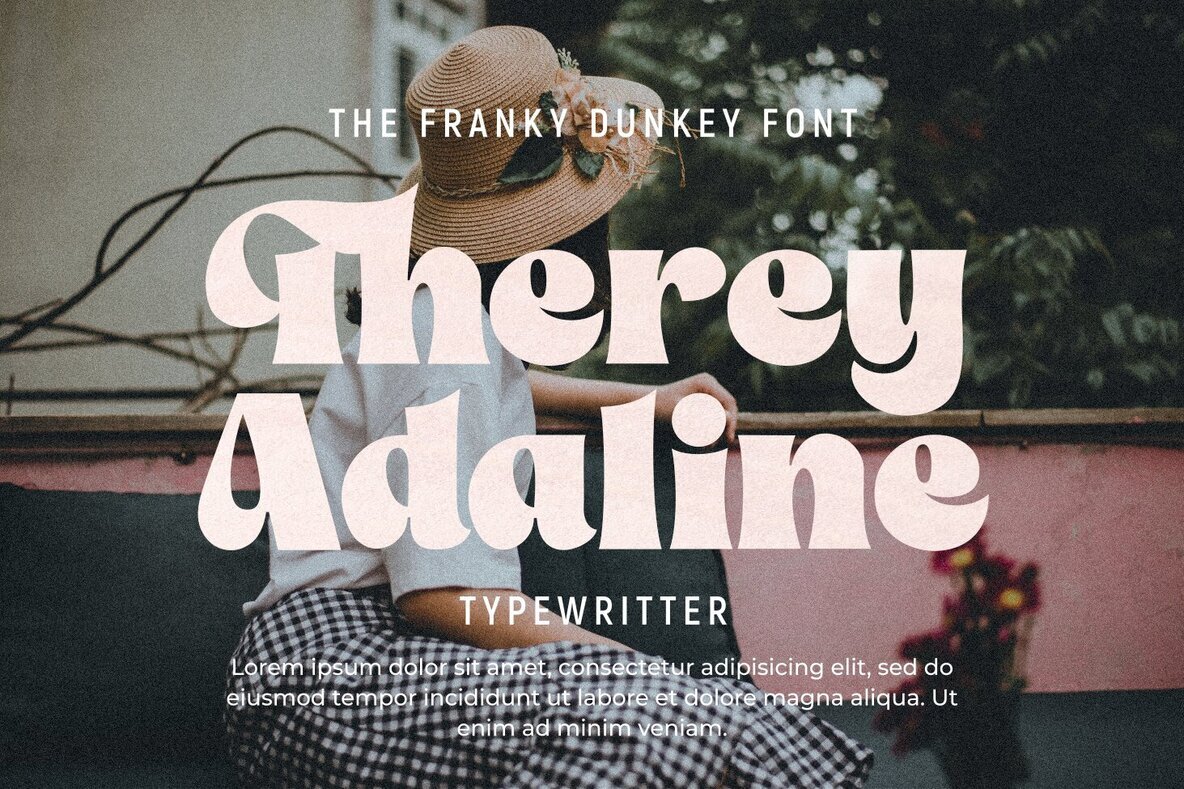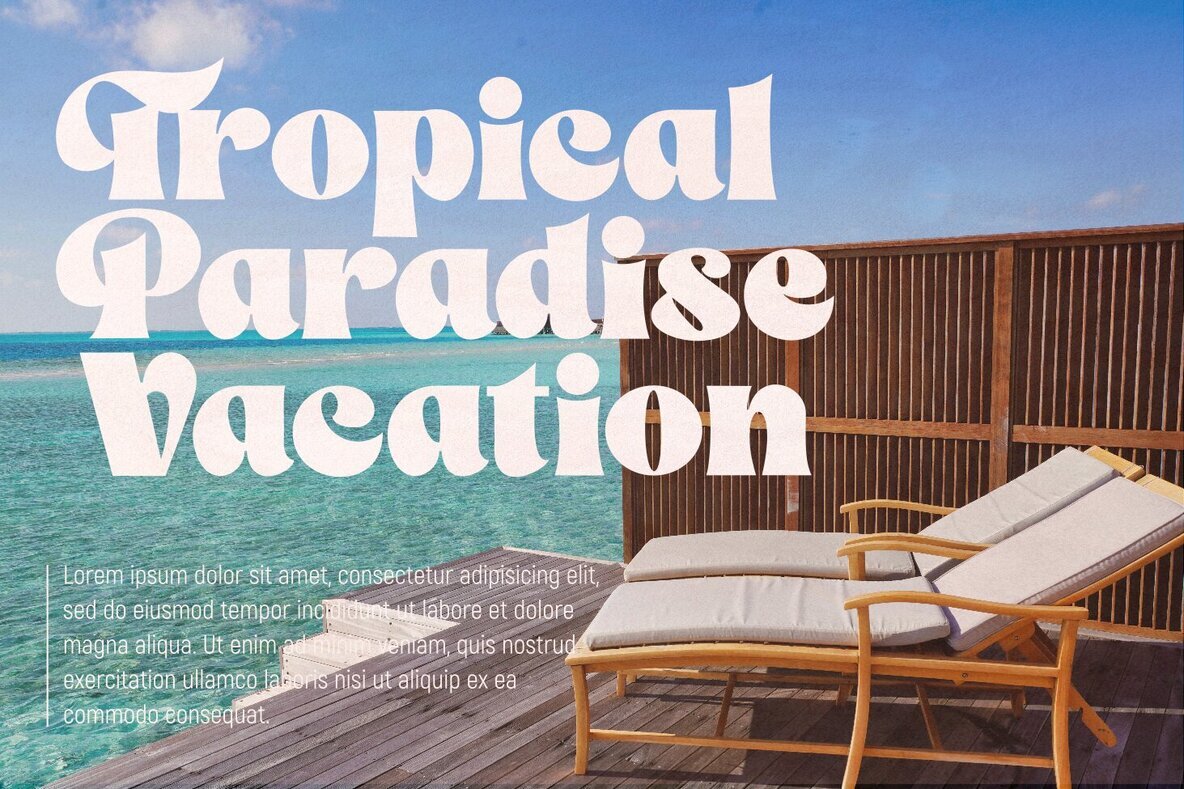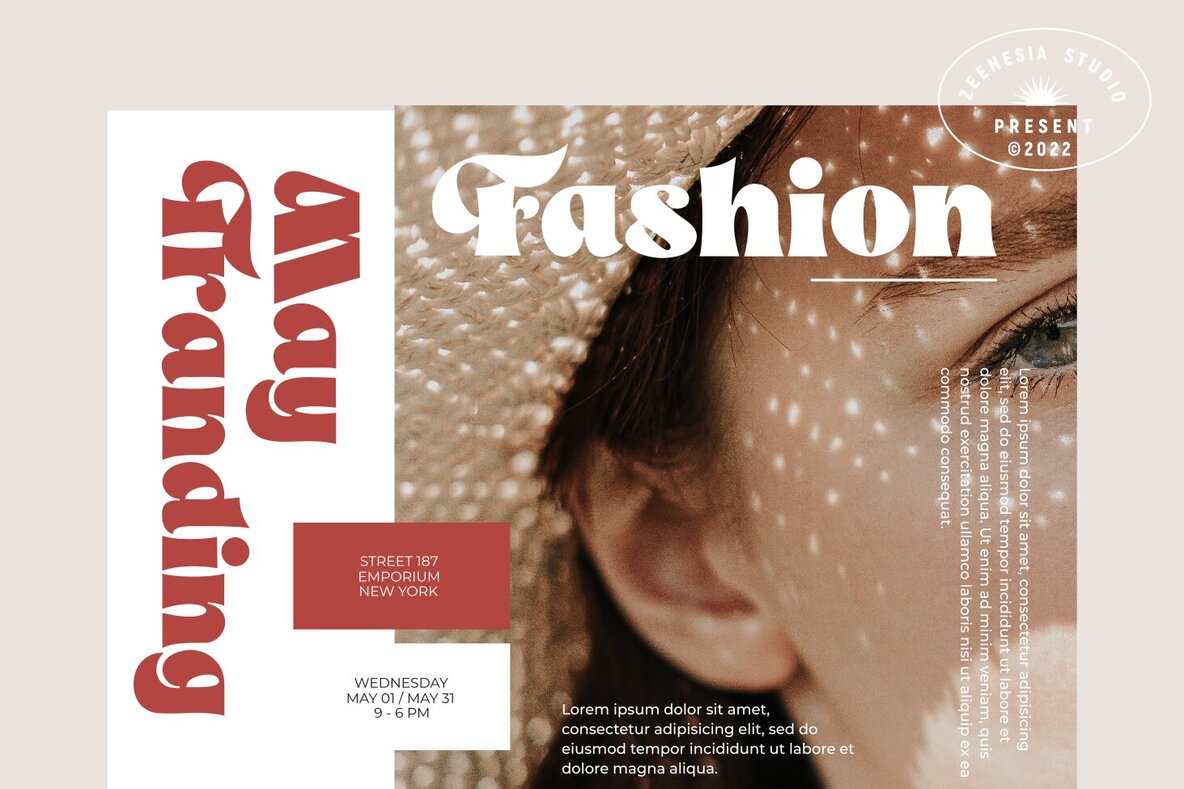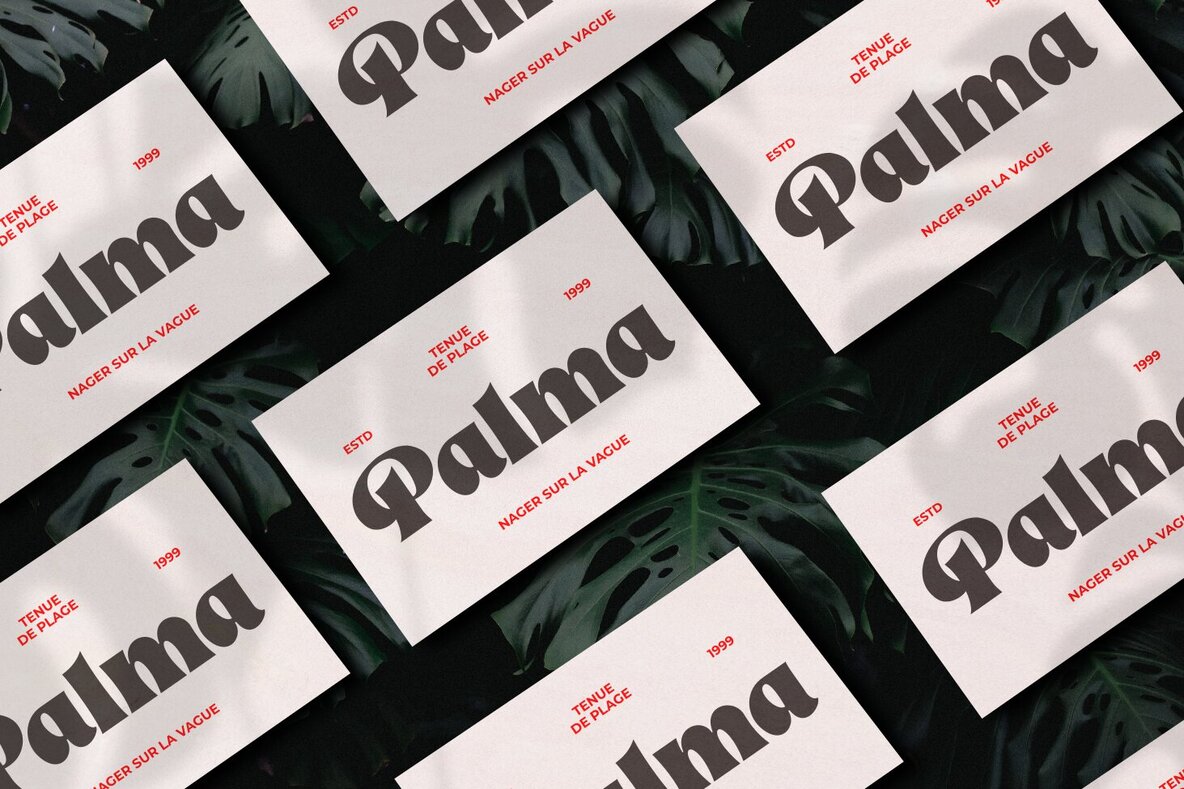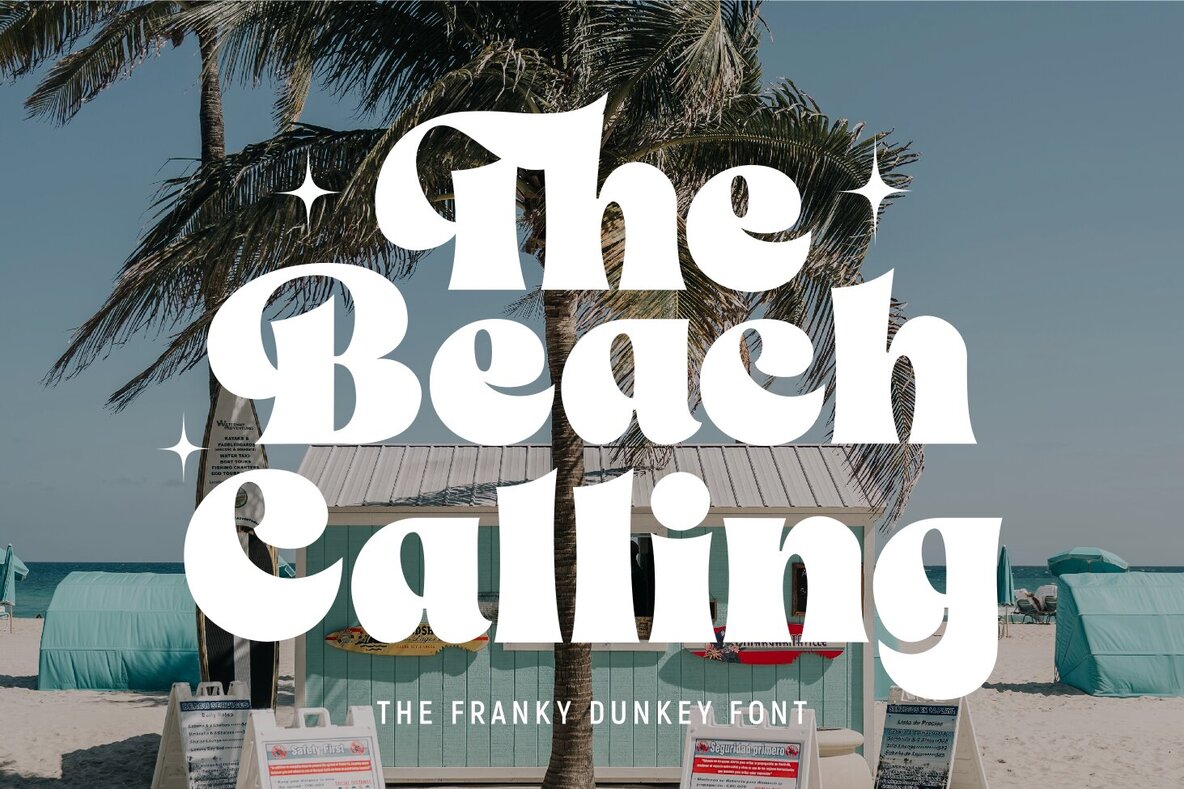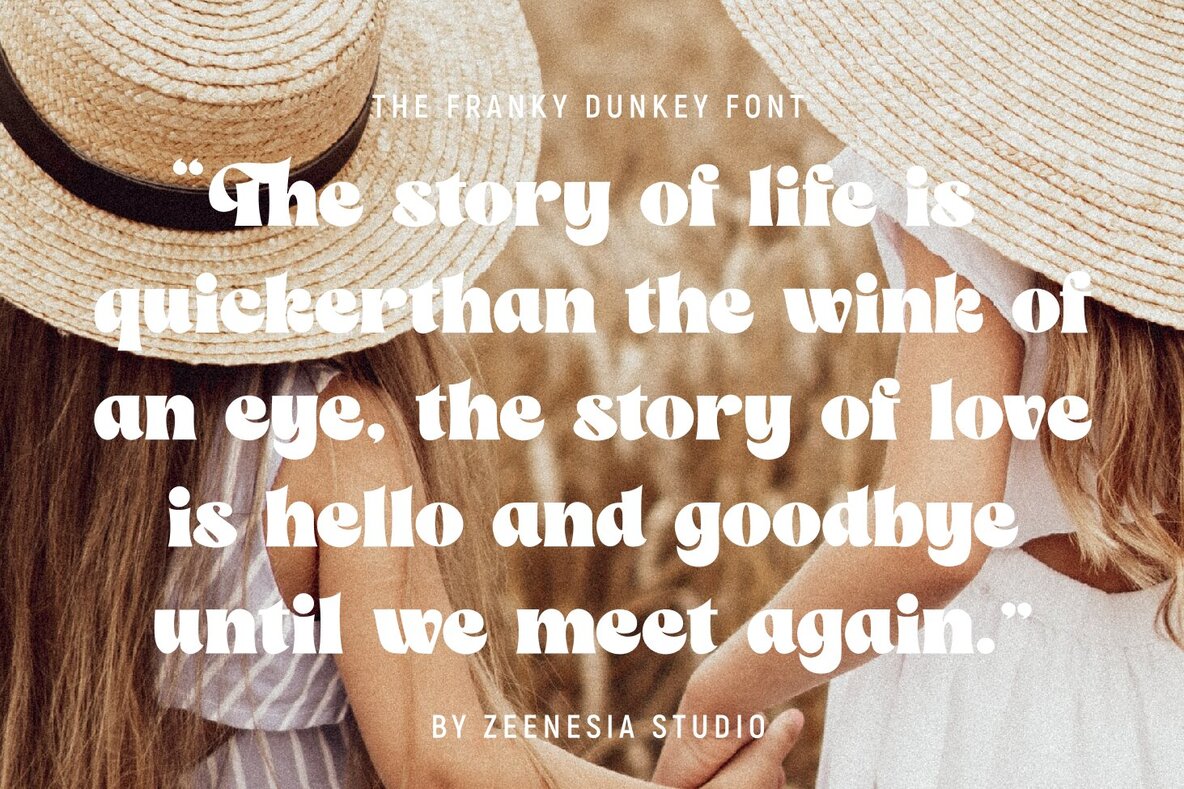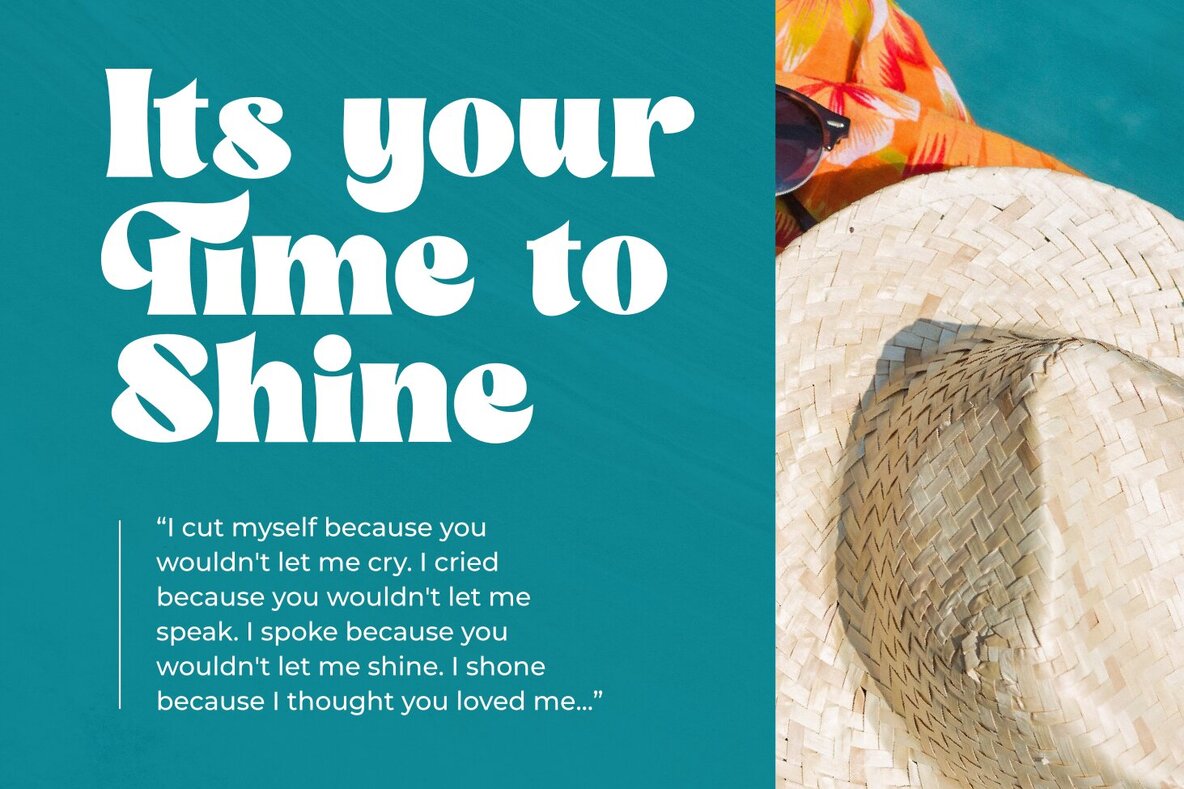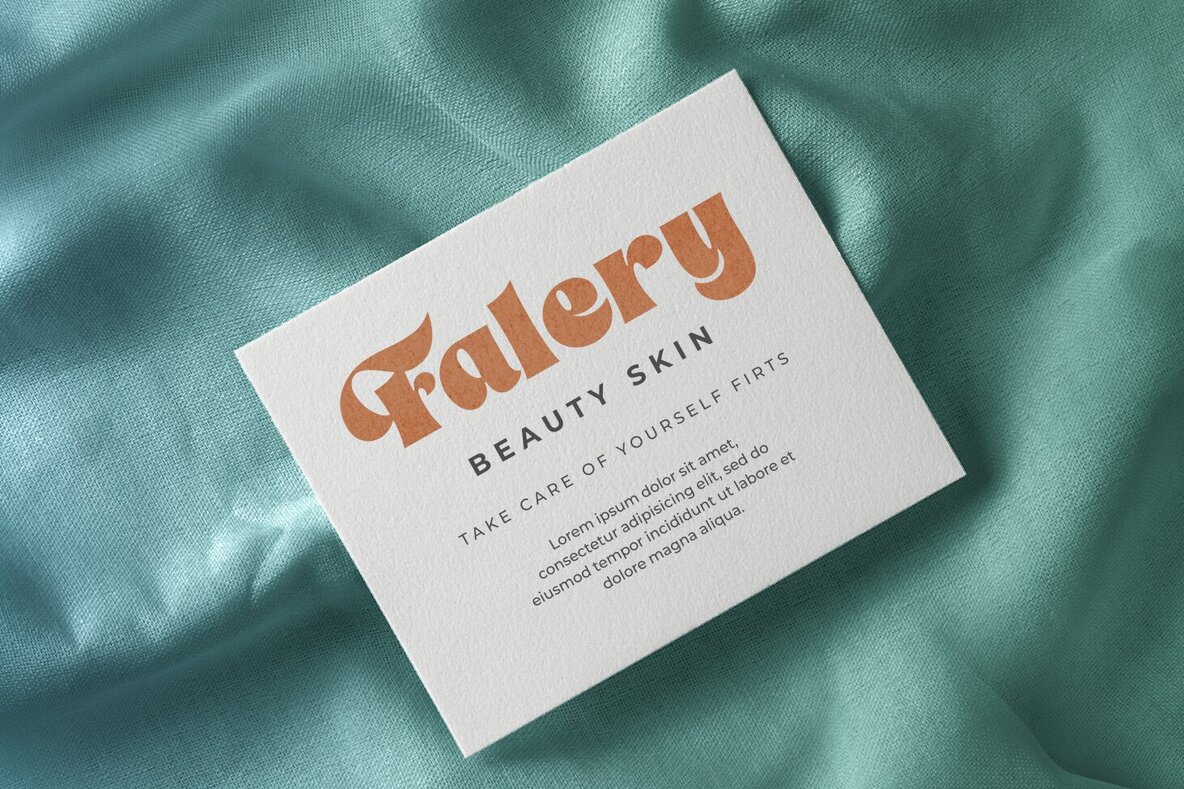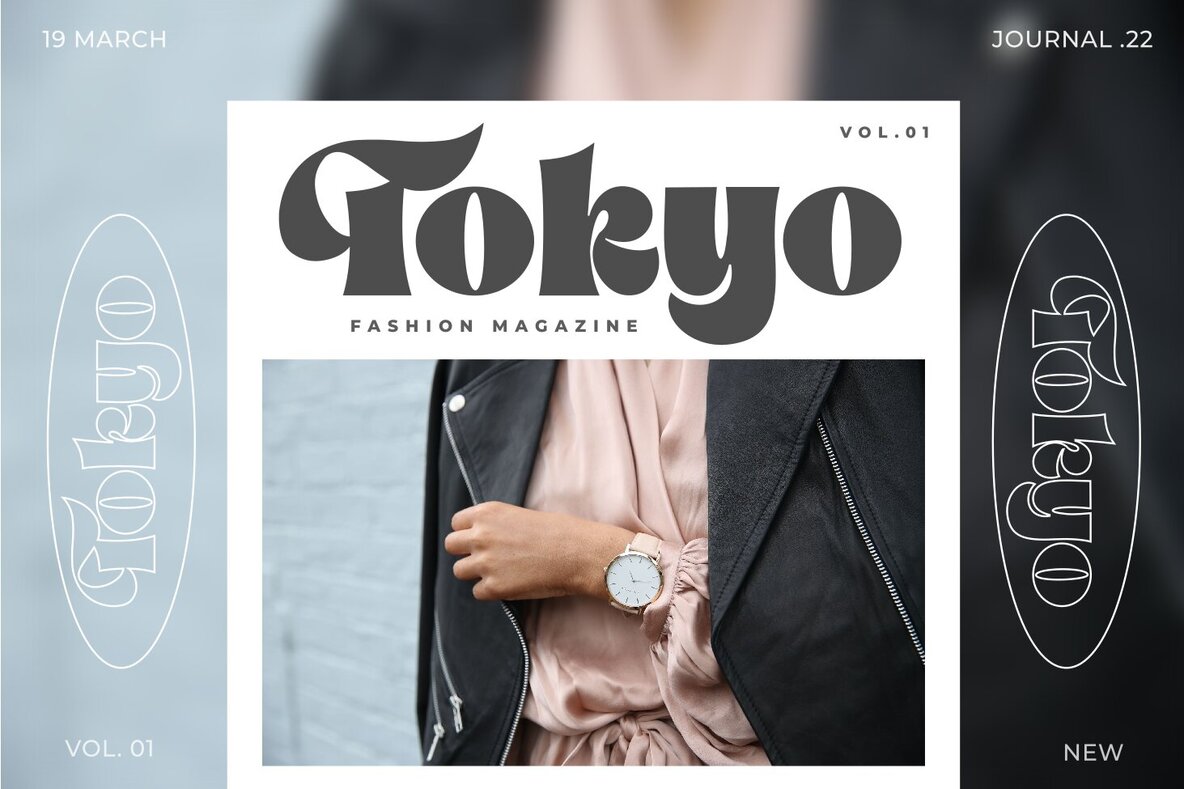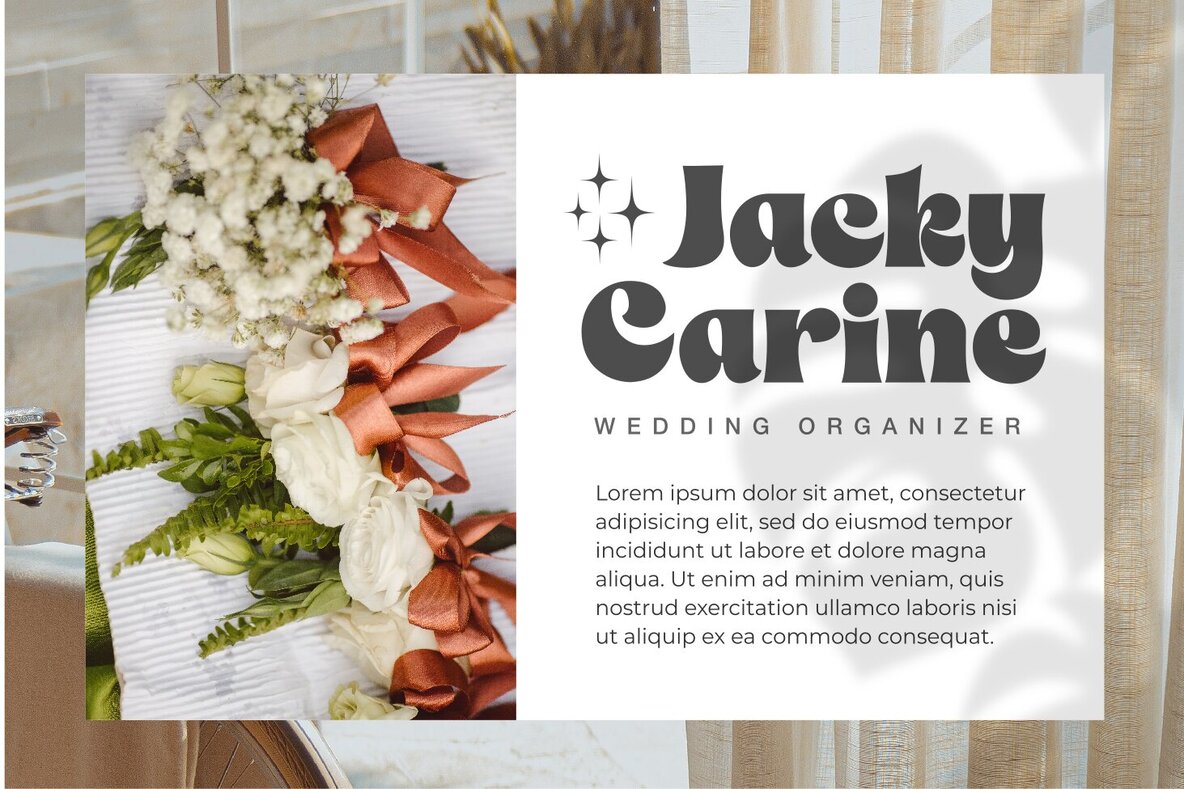
The Franky Dunkey Font
The Franky Dunkey
The Franky Dunkey is a bold style display font with strong character and soft features. It is a modern and classic font with a clear and bold look. It’s a very versatile font that works great in large. Perfect for editorial projects, Logo design, web font, clothing branding, product packaging, magazine headers, or simply as a stylish text overlay to any background image.